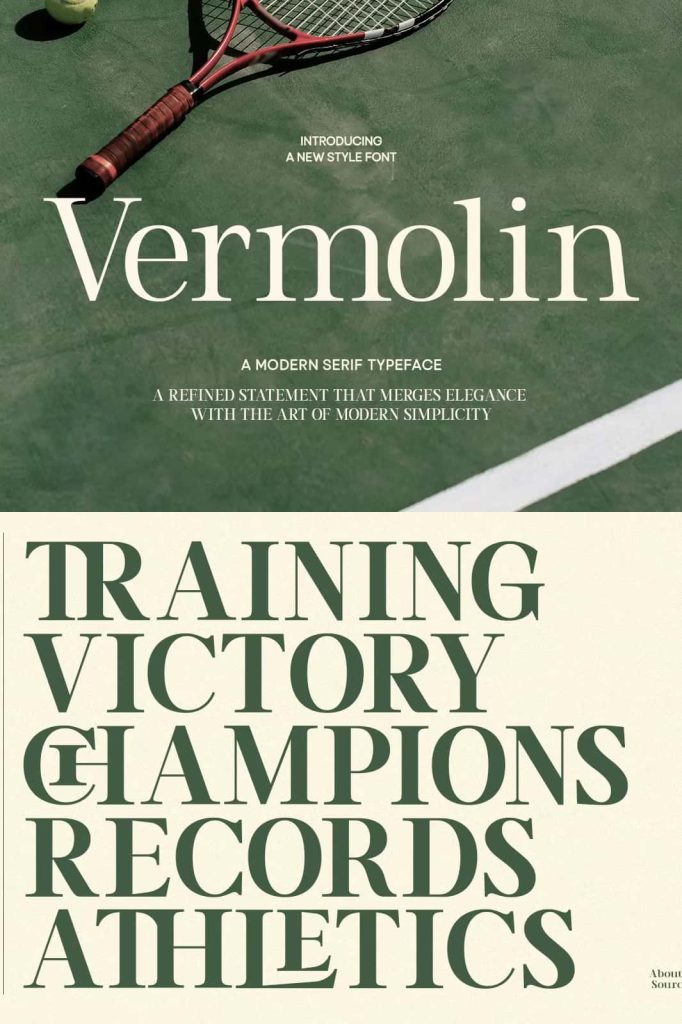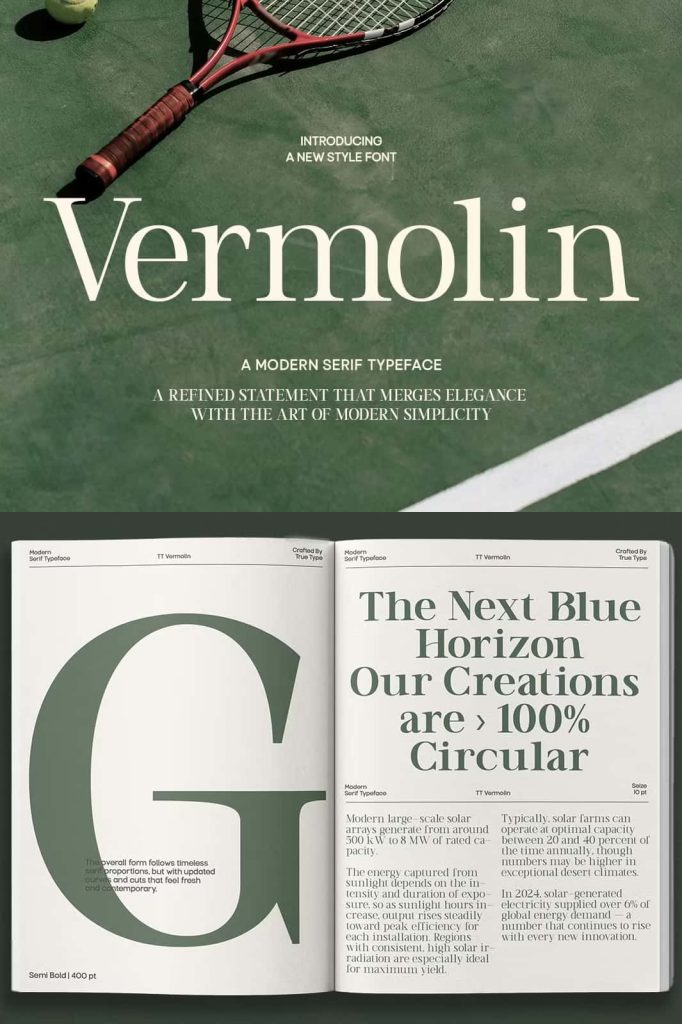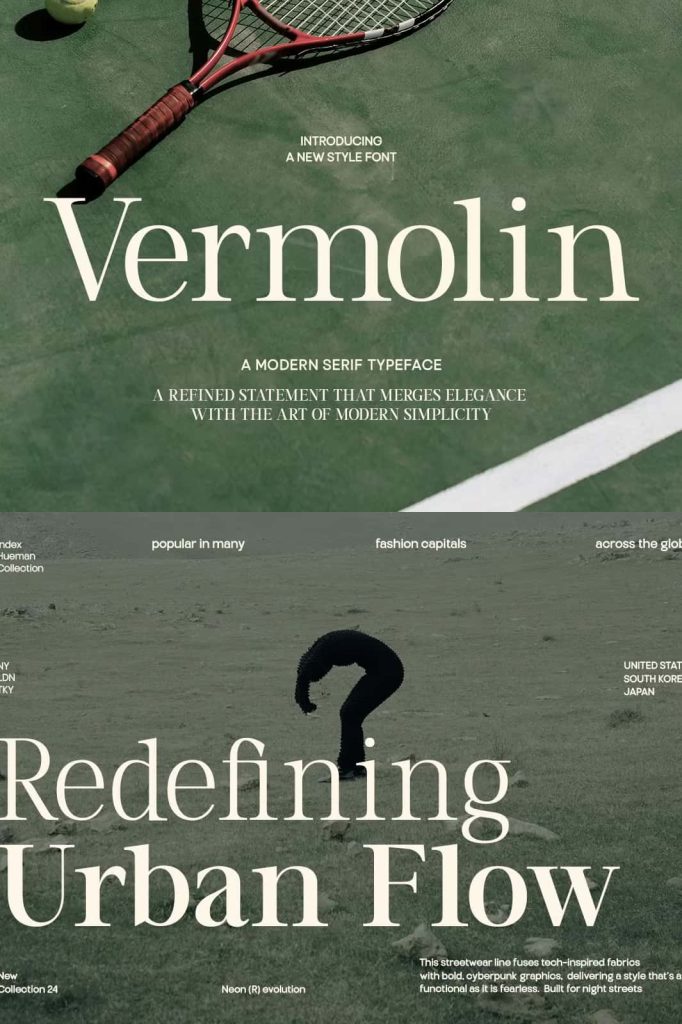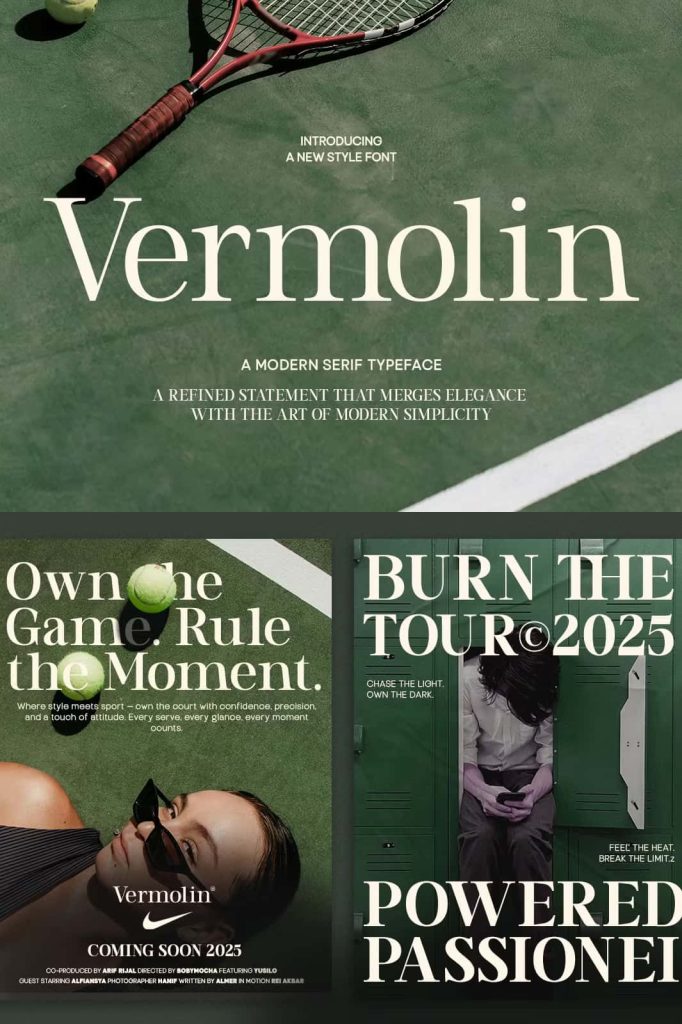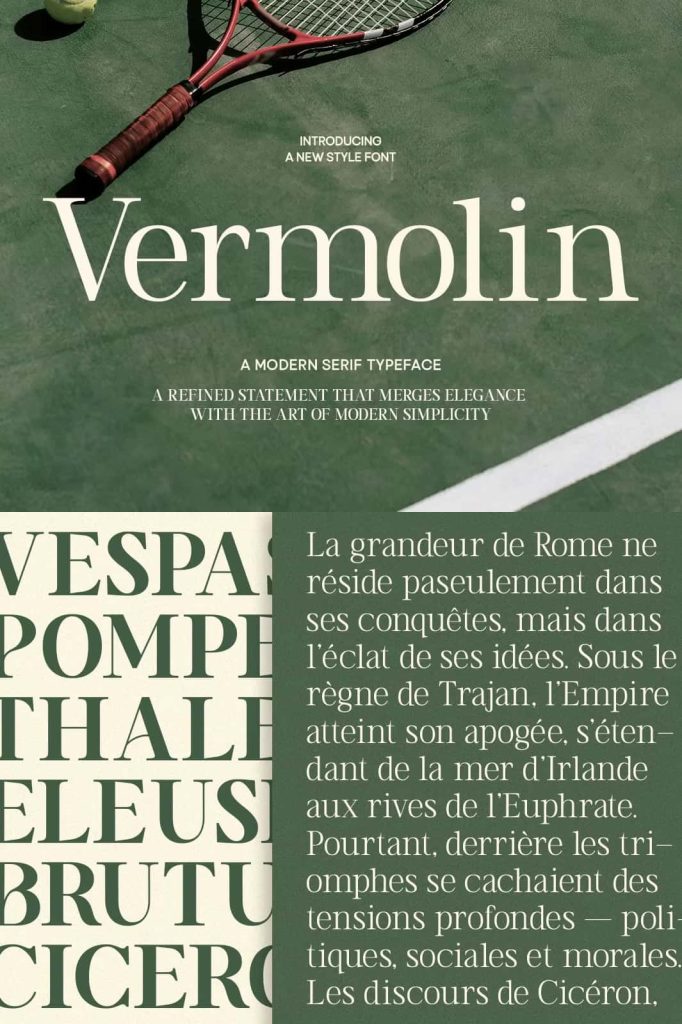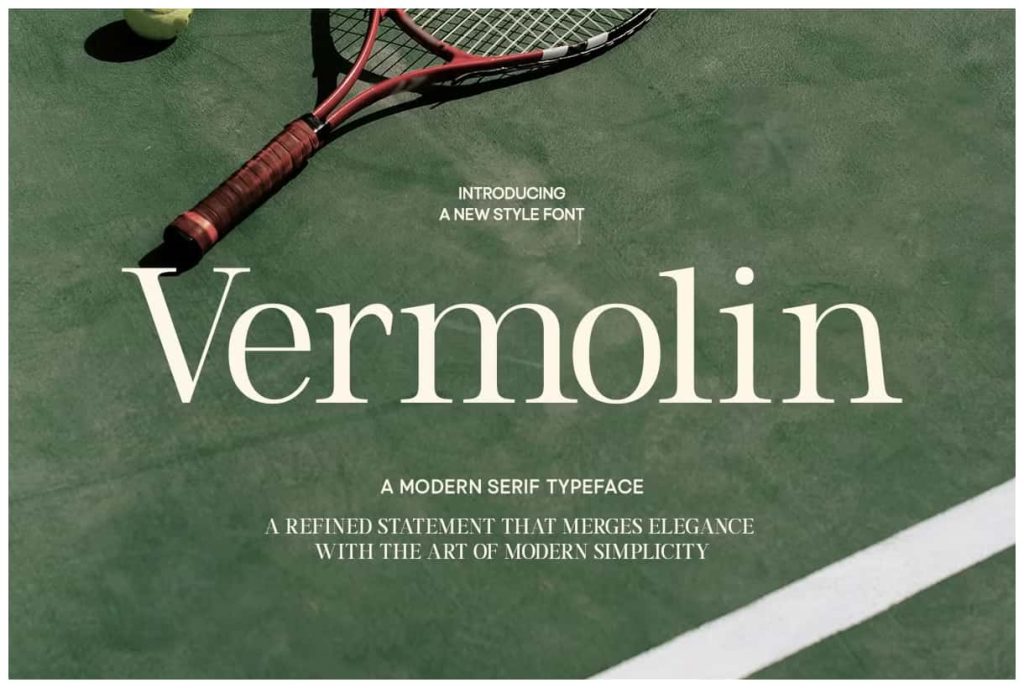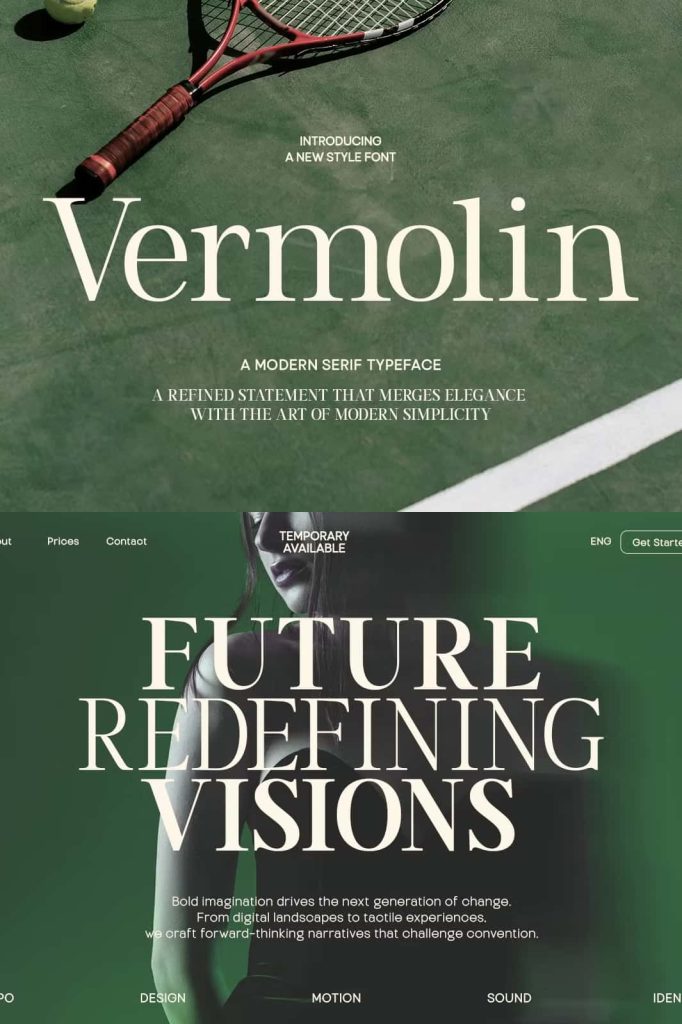
Vermolin is a refined serif typeface that captures timeless sophistication through its sharp contrasts, high vertical stress, and sculptural forms. Carefully crafted for both high readability and high impact, Vermolin thrives in editorial, branding, and luxury packaging settings.